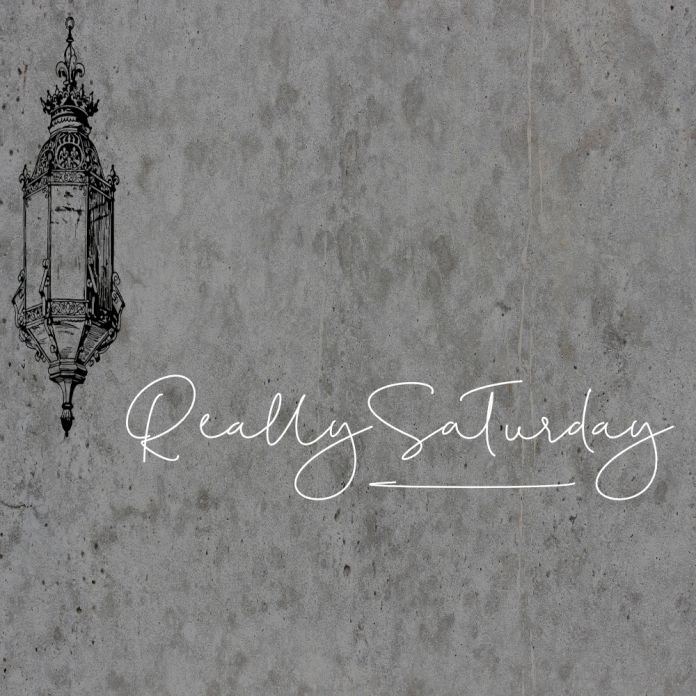
Really Saturday Font
Really Saturday is a thin and delicate handwritten font. Cursive and beautiful, this font will become your favorite choice of font in no time.